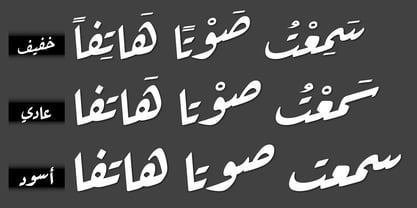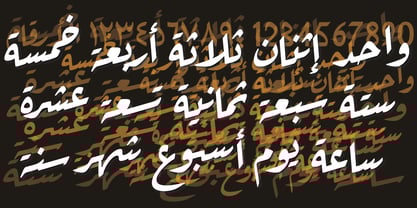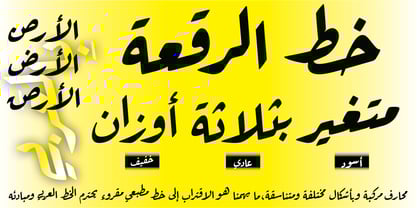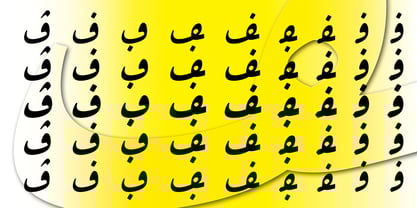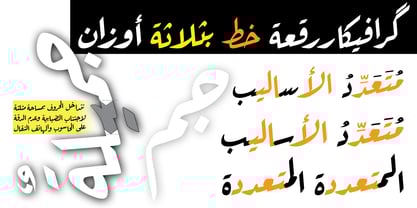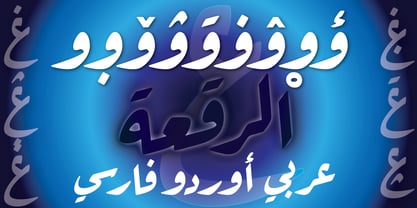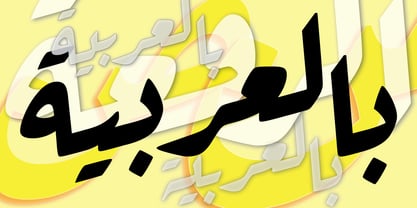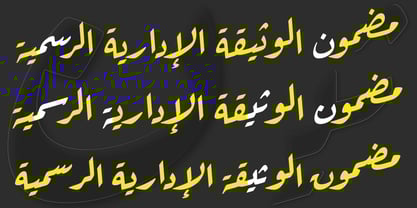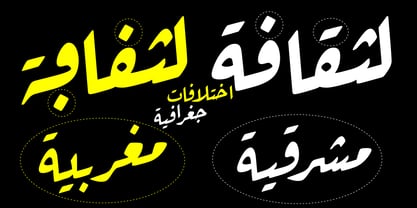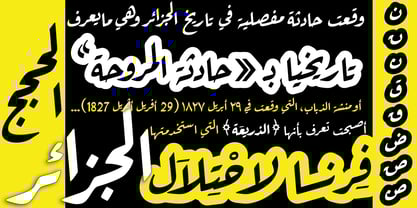
Grafikar Ruqaa
The Grafikar Ruqaa Font Family was designed by Ammar Bouras and published by GrafikarFonts. Grafikar Ruqaa contains 3 styles and family package options.
Ideal for designers, businesses, and individuals alike, this font takes inspiration from the Ruqaa calligraphy, known for its quick readability and easy usability. Whether you're creating striking headlines, marketing materials, or personal projects, "Grafikar Ruqaa" offers exceptional legibility while adding a contemporary touch to your designs.
For optimal results, activate the ligature feature in your software. This will seamlessly connect the letters, enhancing the overall fluidity and visual harmony of your compositions.
"Grafikar Ruqaa" also provides multiple stylistic variants for each character (ss01, ss02 and ss03). With the built-in "style sets," you can easily customize your texts by selecting the glyph that best matches the desired effect, resulting in a unique look.
Part of the "Grafikar Fonts" family, this font pairs perfectly with other Arabic, Latin, and Tifinagh styles, ensuring stylistic coherence across your projects.
Simple to use, "Grafikar Ruqaa" helps you elevate your creations with a modern flair while ensuring excellent readability and visual impact.
The Arabic writing is fundamentally based on the calligraphic look and the relation between the letters that shift shape at each connection between them. GrafikarFonts’s aim is to create fonts out of Arabic symbols that’s influenced from this calligraphic tradition all while keeping in touch with a modern and digital world, making sure to match to practical needs as well. Often, in the Arabic language, we have to write words from Latin and that’s another goal of GrafikarFonts; to design smooth Arabic, Latin and Tamazight Tifinagh fonts that harmonize together.